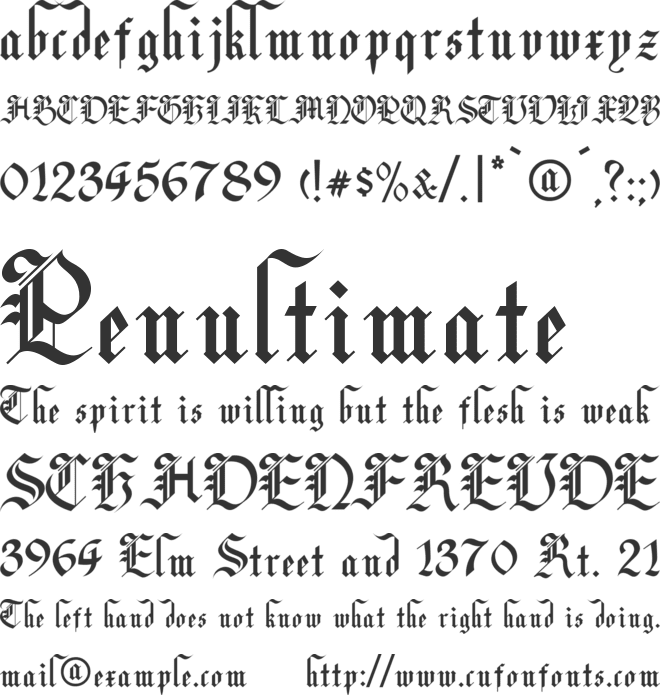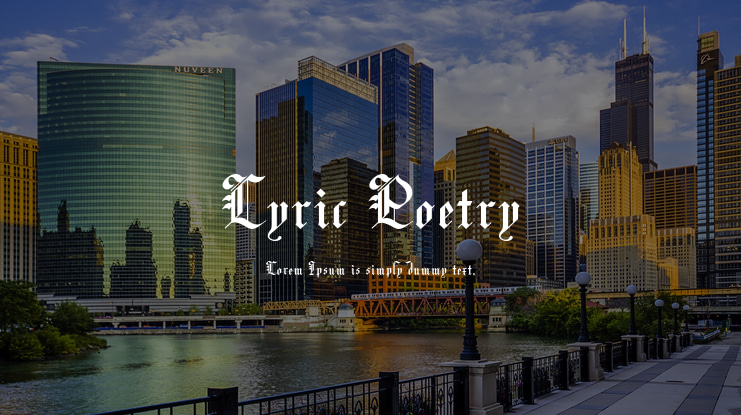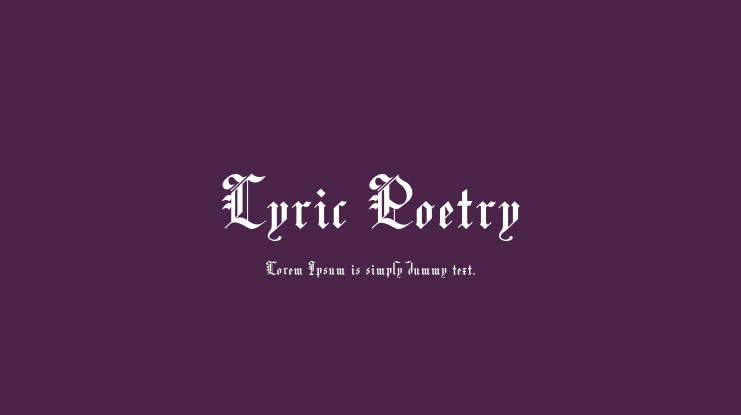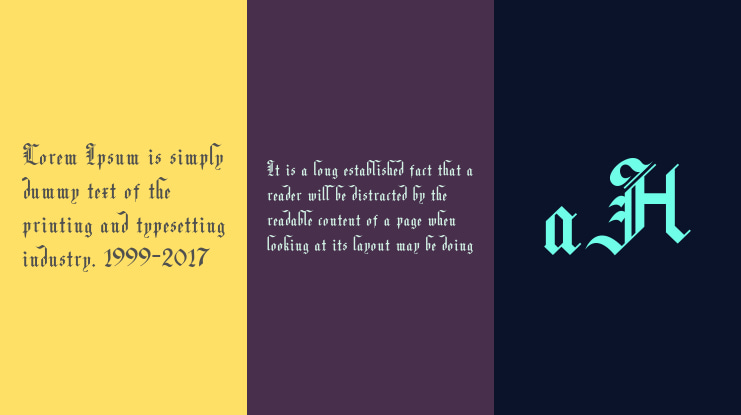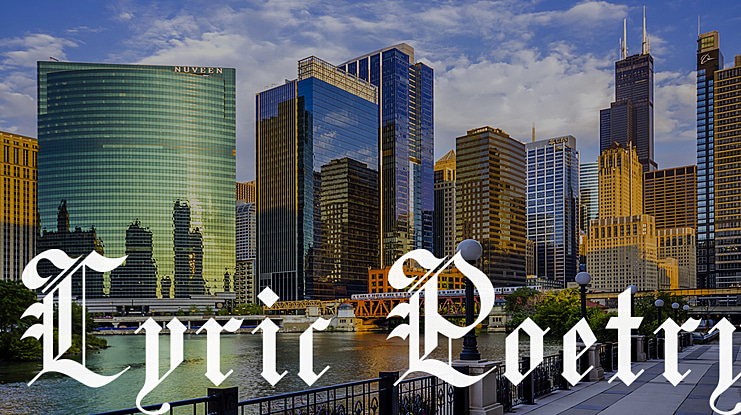
Lyric Poetry Font
This is a medieval Gothic font. It's a professional version which was complicated hand-made and computer-generated graphics, and various revisions. After installing on the computer, you can create posters, web graphics, game graphics, t-shirts, videos, signs, logos and more. These fonts are 100% for both personal and business usages.